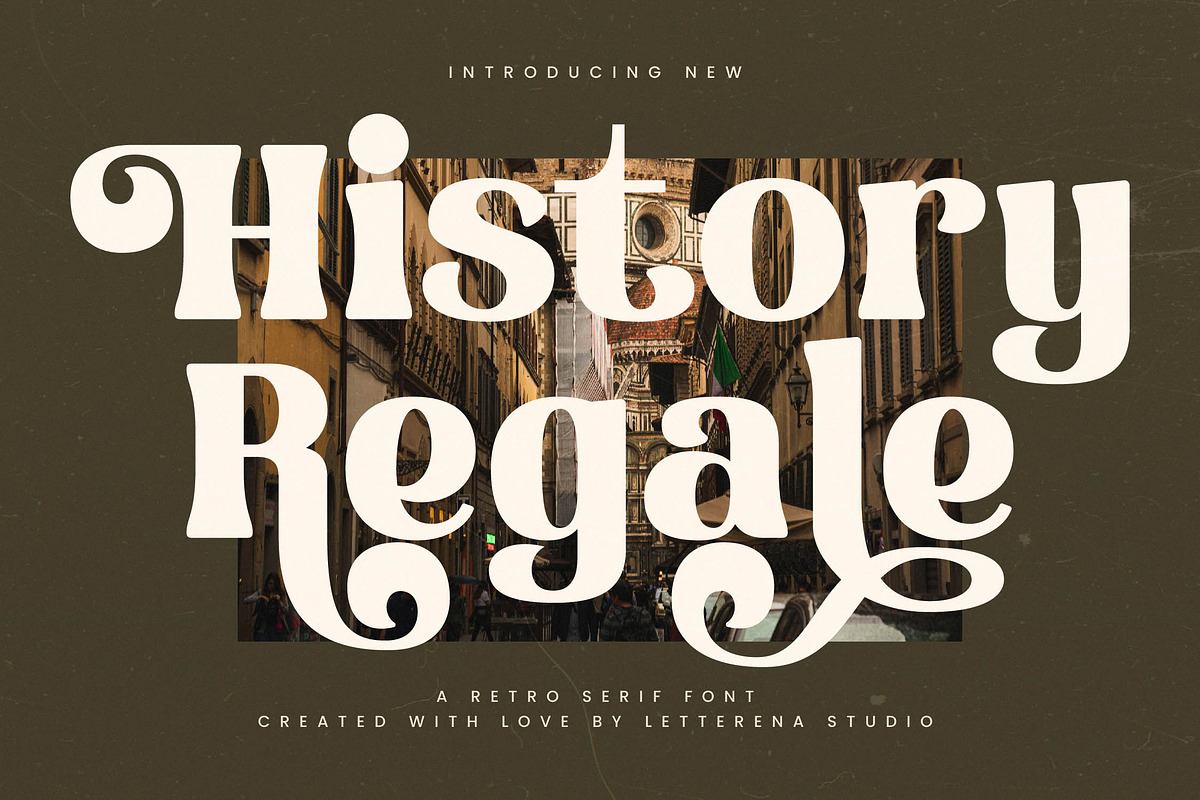
History Regale Retro Serif Font Free Download
History Regale – Retro Serif Font Free Download
History Regale – Retro Serif Font Free Download is a vintage-inspired serif typeface that blends classic elegance with bold character. With its high contrast strokes, ornate curves, and refined details, this font is perfect for logos, book covers, packaging, fashion editorials, and branding projects that seek to evoke a nostalgic yet timeless look.
Rich in personality, History Regale Free Download captures the charm of old-world typography while staying sharp and relevant for modern designs. It includes stylistic alternates and ligatures, offering flexibility and flair in every composition.